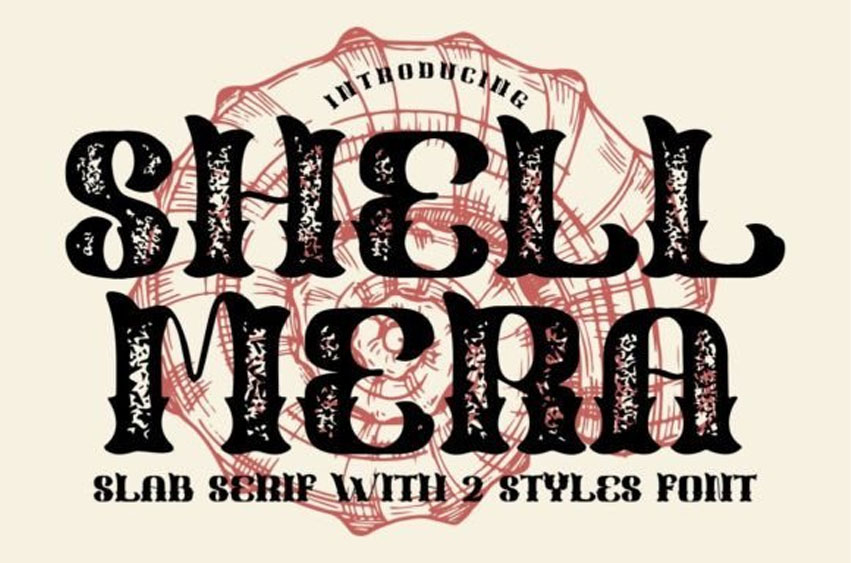
Shell Mera Font
Shell Mera Font is a stylish and cool slab serif display font. Masterfully designed to become a true favorite, this font can elevate each of your creative ideas to the highest level!